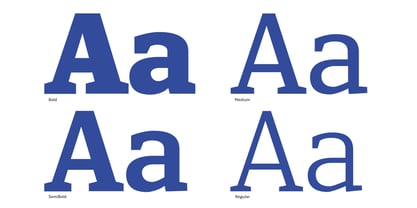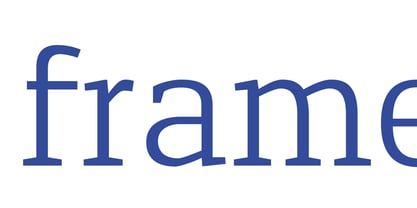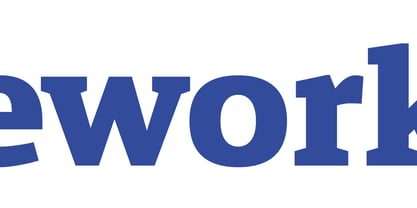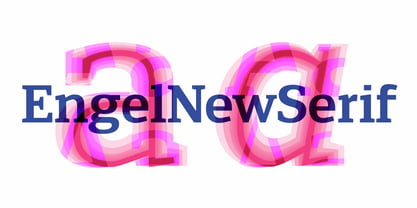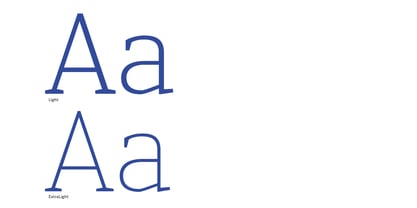
Engel New Serif
by Kursivist
The Engel New Serif Font Family was designed by Sofie Beier and published by Kursivist. Engel New Serif contains 12 styles and family package options. More about this family
Engel New is a versatile type family designed by Sofie Beier, comprising 24 distinct styles available for individual purchase or as a complete package. EngelNewSerif serves as a direct counterpart to EngelNewSans, featuring 12 weights that reflect the structure and weight range of its sans-serif counterpart. This harmonious design facilitates seamless integration of both families within a unified typographic system. EngelNewSans and EngelNewSerif are expertly crafted for a diverse range of applications, excelling in both running text and impactful headlines, making them perfect for branding, editorial, and web use.
Designers: Sofie Beier
Foundry: Kursivist
Engel New Serif